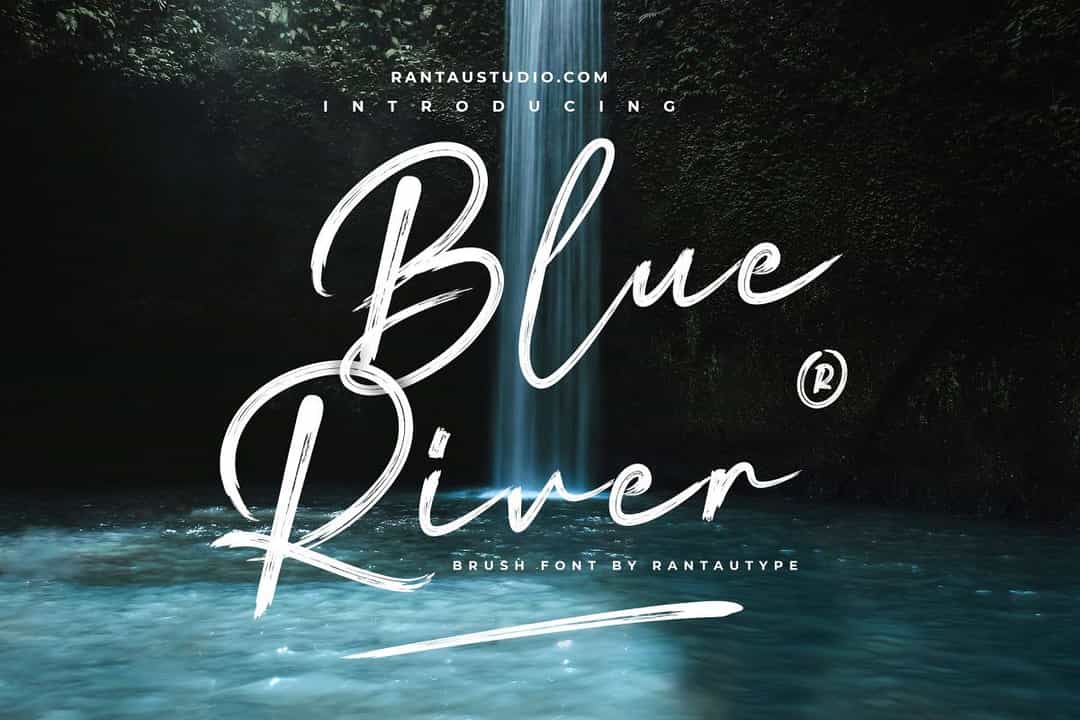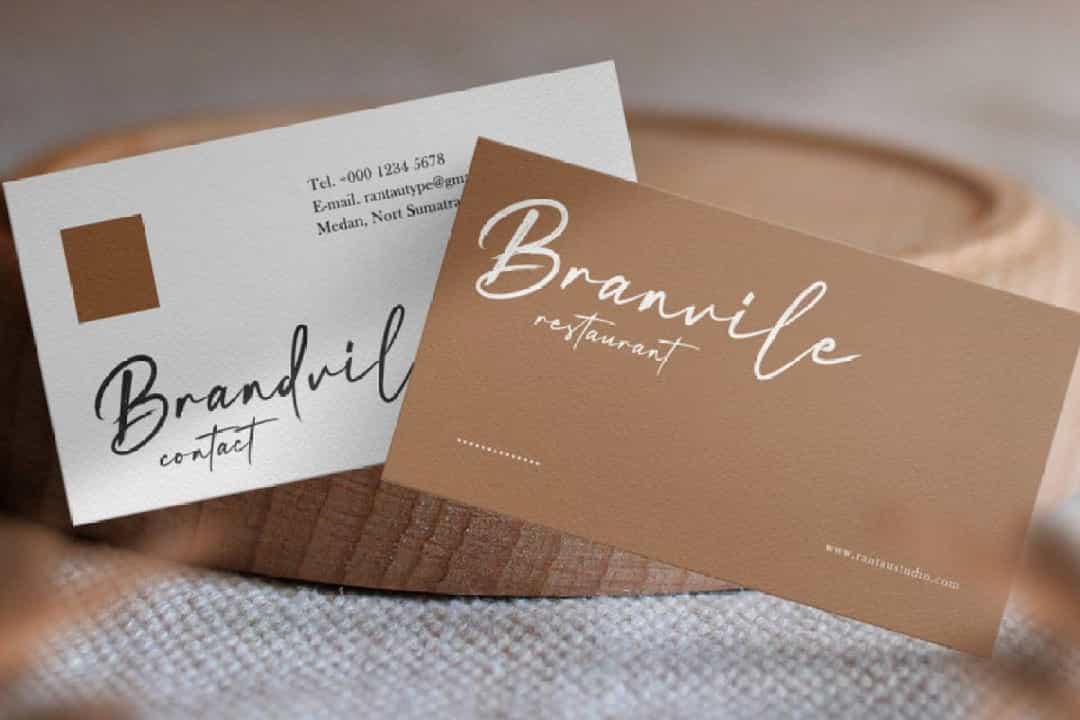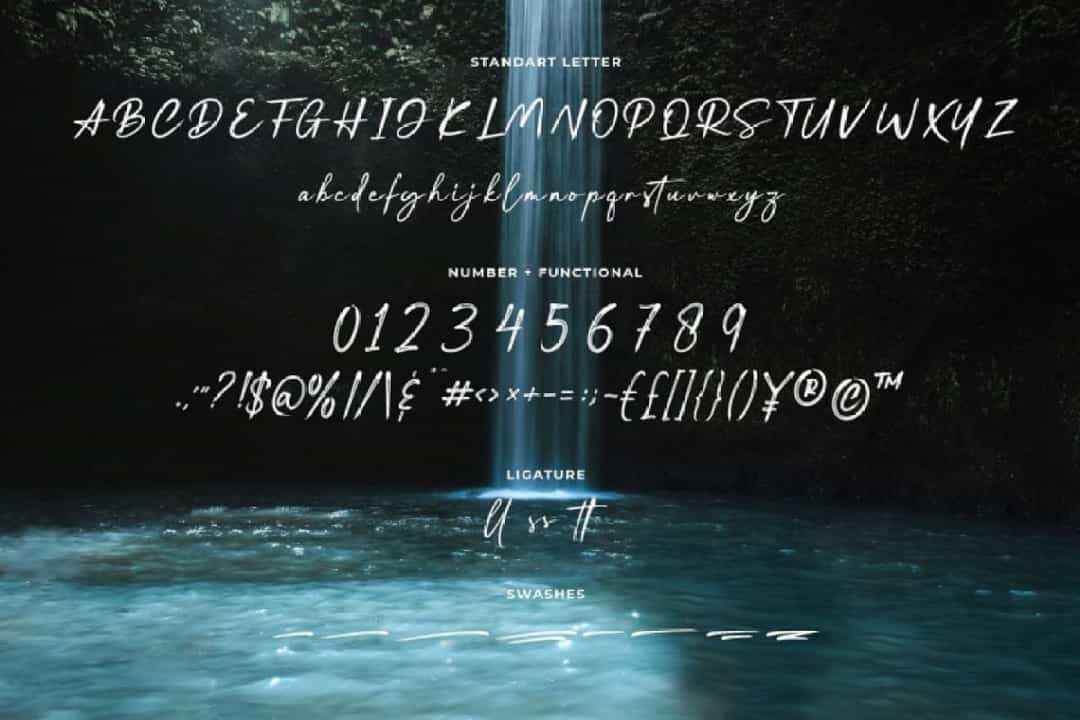
Discover Blue River Font, part of the Brush collection—a versatile and unique font perfect for adding a personal touch to your projects. Download it for free and enjoy crafting designs with style, from invitations to social media posts. This font is available exclusively for personal use, giving you the freedom to create without limits. Unlock your creativity with Blue River Font today!
Blue River is an easily readable brush script font with standard ligatures as well as lines you can apply for your designs. Our goal was to keep its appearance contemporary, easy-to-read, elegantly appealing and straightforward for users.